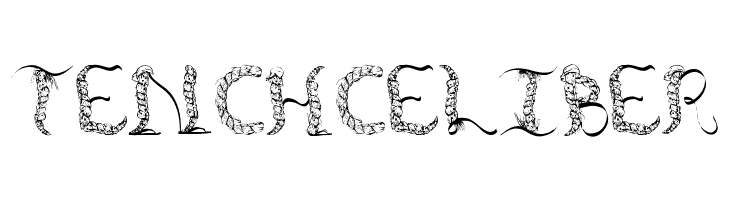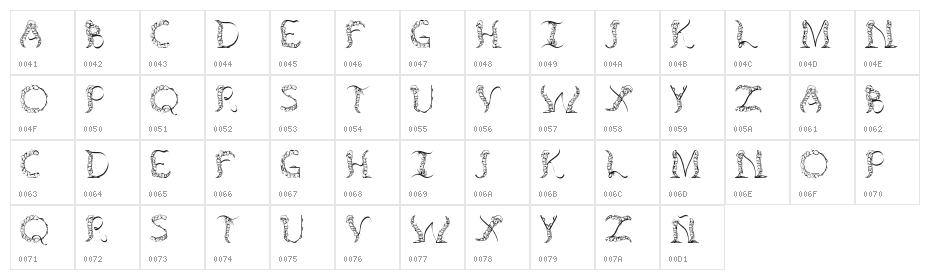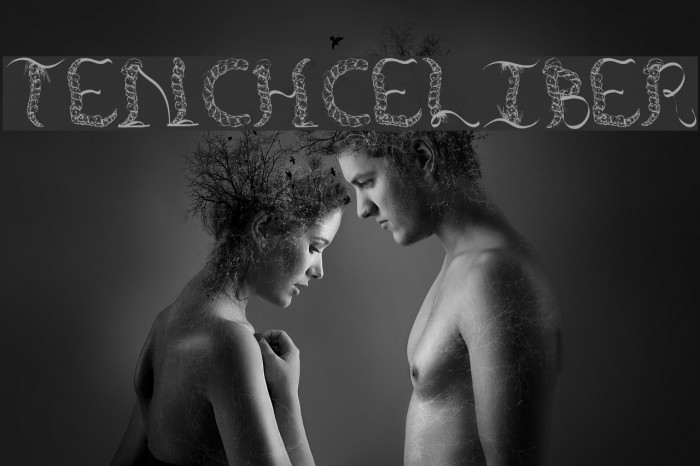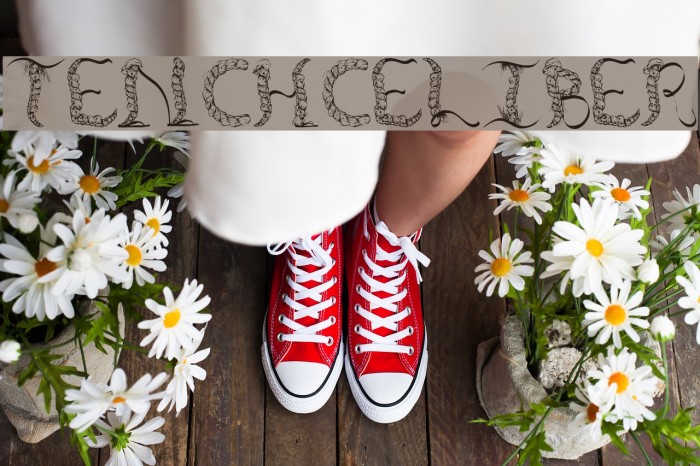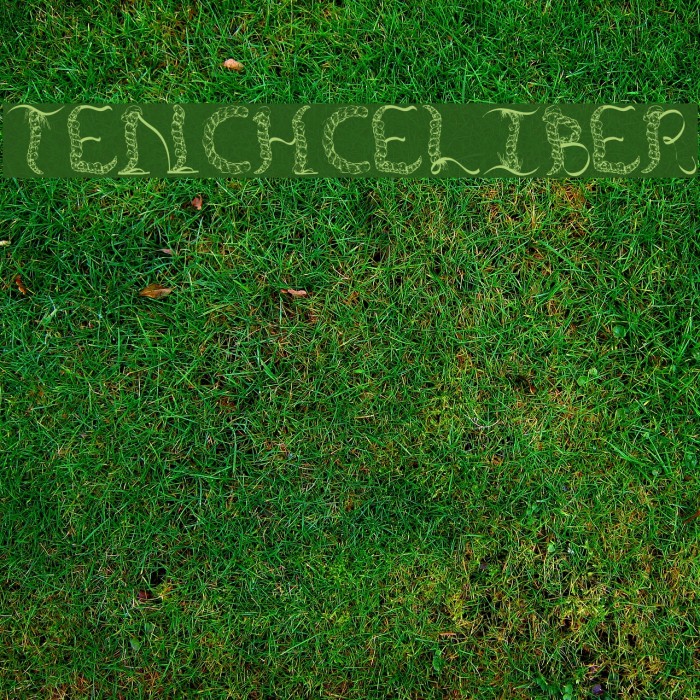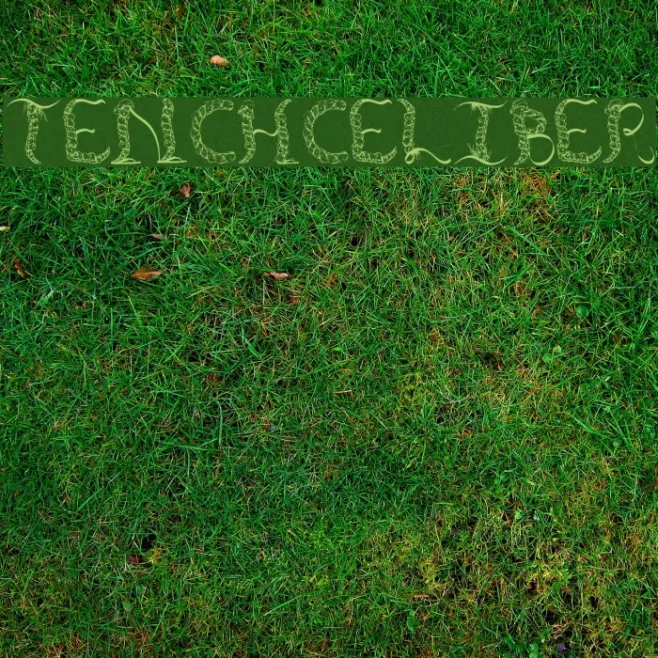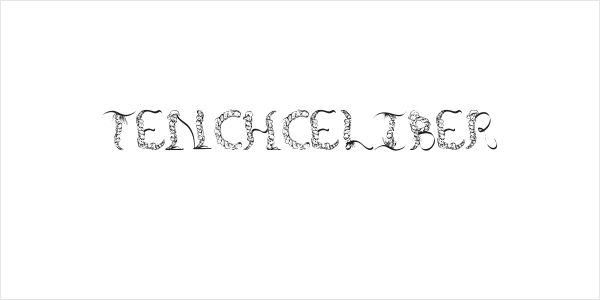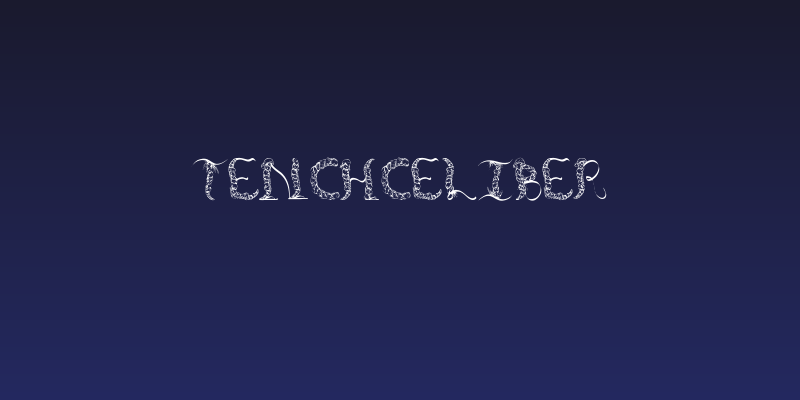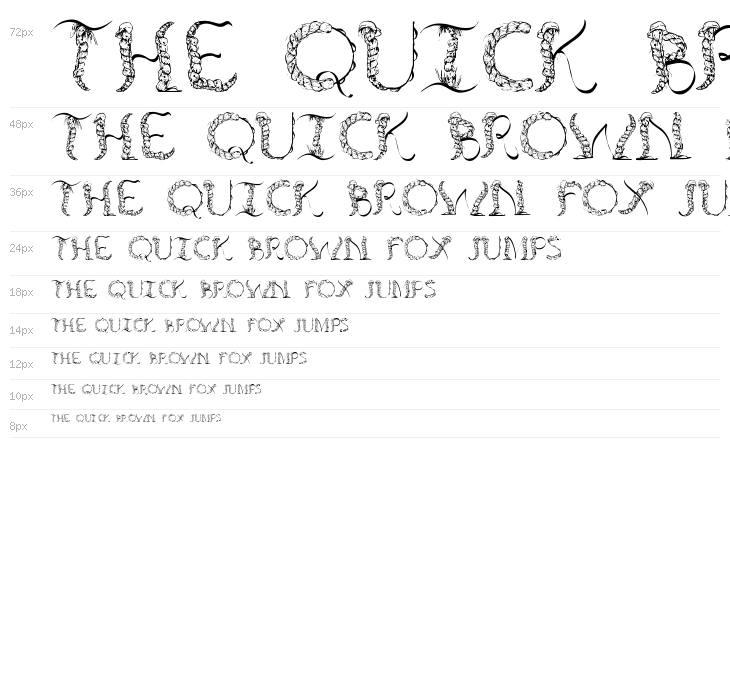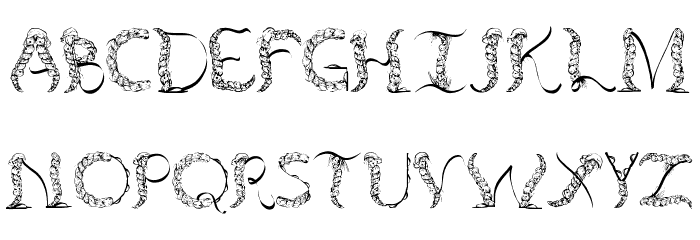
TenCHCeliber Font
TenCHCeliber Description
This font features an intricate and decorative style, with each letter adorned with floral and vine-like embellishments. The design is highly detailed, giving it an ornate and artistic appearance. The uppercase letters are particularly elaborate, with swirling lines and floral motifs that create a sense of movement and elegance. The lowercase letters maintain the decorative theme, though they are slightly less complex, providing a balance between readability and artistic flair. This font is ideal for projects that require a touch of sophistication and creativity, such as invitations, greeting cards, or artistic posters.
| Use Case | Headlines, Artistic projects, Invitations |
| Proposed Projects | Ideal for wedding invitations, artistic posters, greeting cards, and decorative branding. |